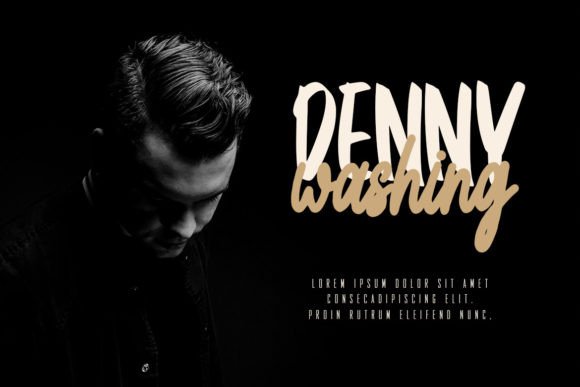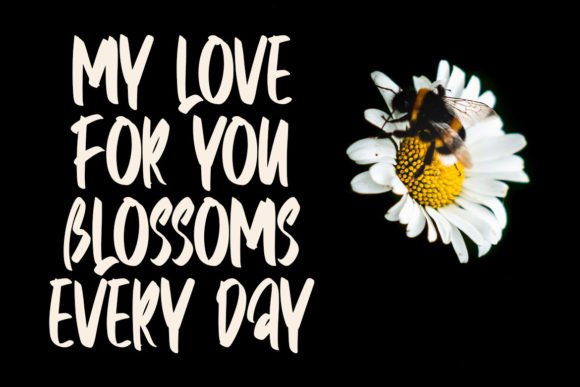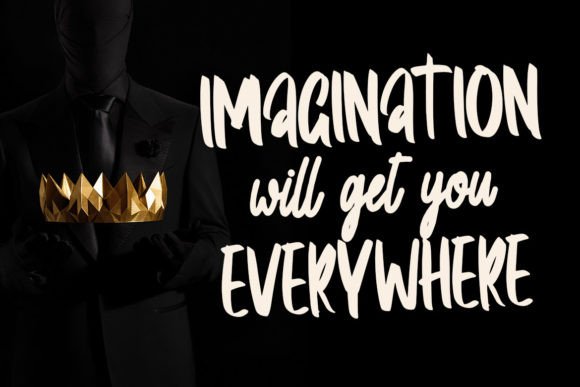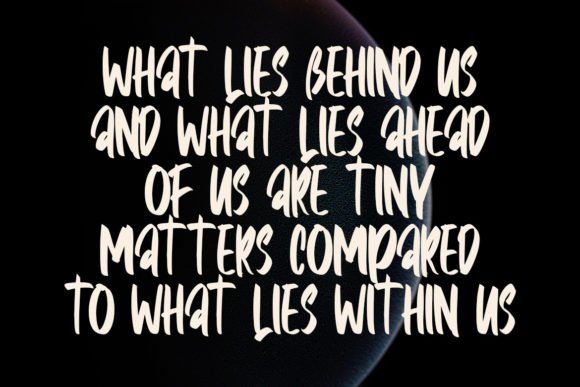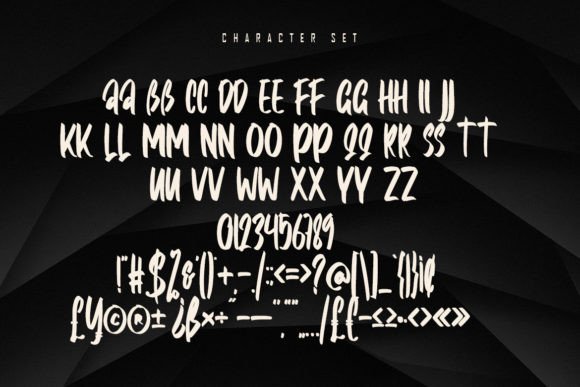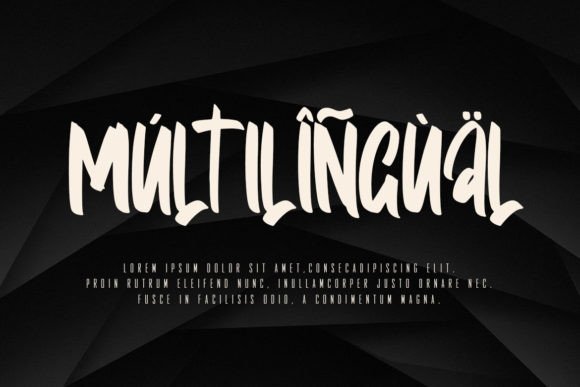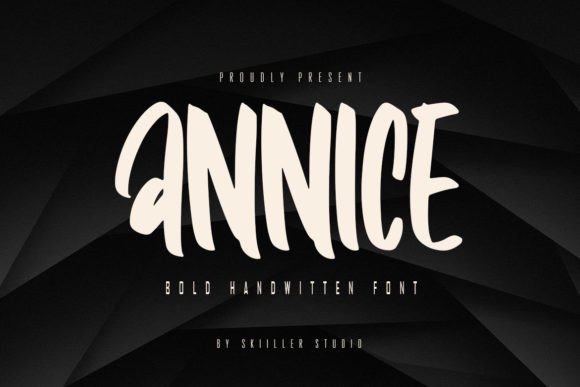
The Annice Font: A Modern Handwritten Gem for Your Creative Projects
I’ll never forget the time I was working on a branding project for a trendy new coffee shop. My client wanted a font that was modern, unique, and would stand out on their packaging and marketing materials. I spent hours scouring font websites, but nothing seemed quite right. That was until I stumbled upon the Annice font. 💡
It was love at first sight! The Annice font has a beautiful, handwritten quality that is both easy to read and visually striking. Its unique, contemporary feel makes it perfect for adding a touch of personality to any project. In this article, I’ll share my honest review of the Annice font, provide a practical guide on how to use it, and explore some similar fonts you might love.
- ✅ Unique and modern handwritten feel
- ✅ Easy to read, even at smaller sizes
- ✅ Perfect for logos, invitations, and creative projects
- ✅ Highly versatile and adaptable
- ⚠️ Limited availability of stylistic alternates
- ⚠️ May not be suitable for very formal or traditional projects
The Story Behind Annice: Designer Inspiration
The Annice font was designed with the modern creative in mind. Its unique, handwritten feel is inspired by the latest design trends and the desire for fonts that are both beautiful and functional. While the designer behind Annice remains anonymous, their passion for typography and commitment to quality is evident in every detail of the font.
Q: What type of projects is the Annice font best suited for?
A: The Annice font is perfect for logos, invitations, and creative projects that require a modern and unique touch.
Q: Is the Annice font easy to read?
A: Yes, the Annice font is designed to be easy to read, even at smaller sizes, making it perfect for a wide range of applications.